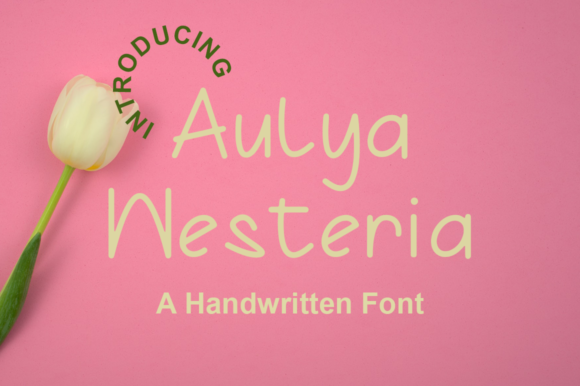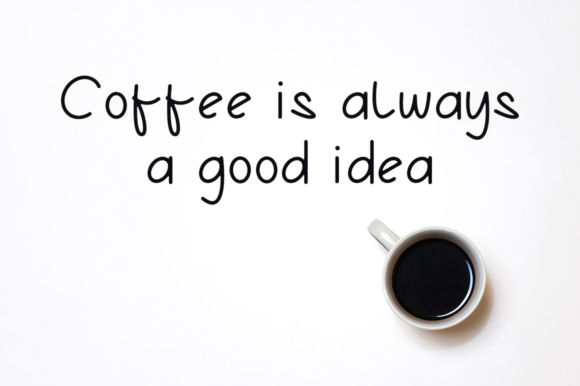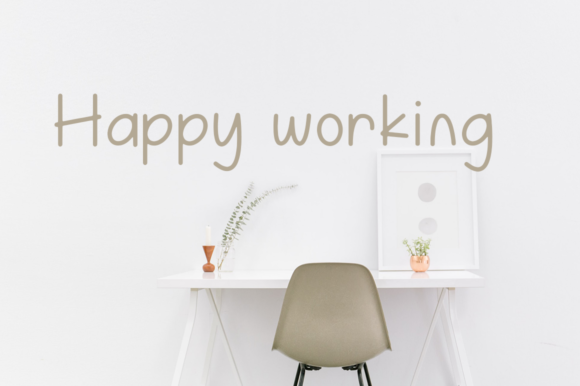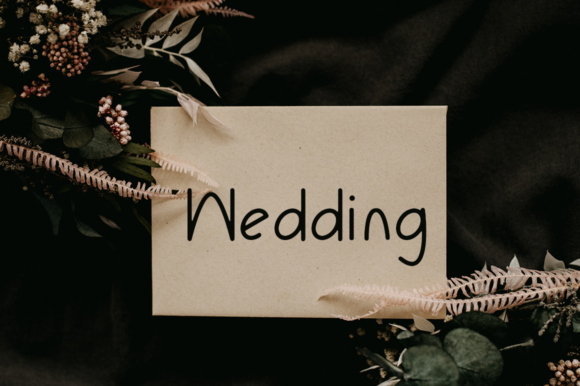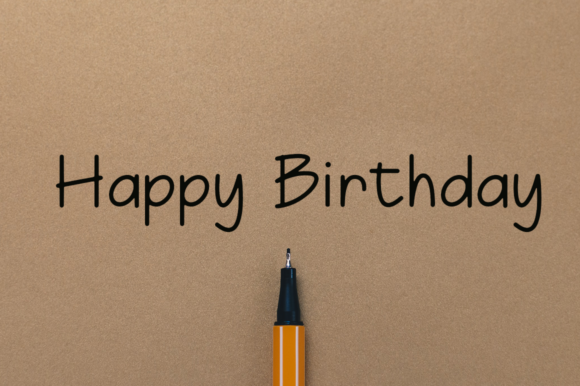
Aulya Westeria Font
About Aulya Westeria Font
Aulya Westeria is a thin and clean handwritten font. It can easily be matched to an incredibly large set of projects, so add it to your creative ideas and notice how it makes them stand out!